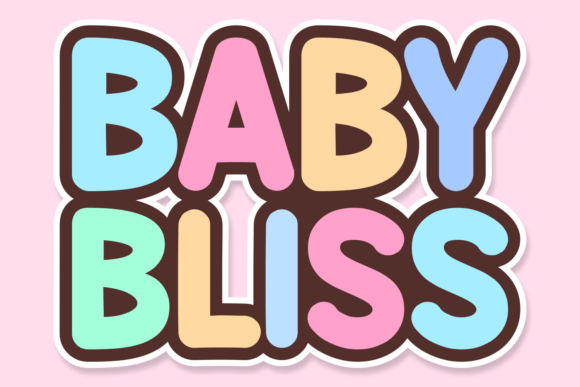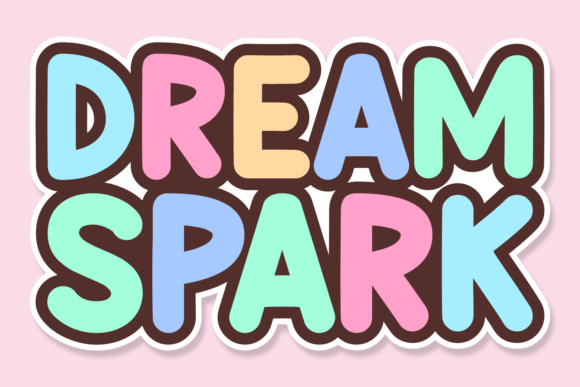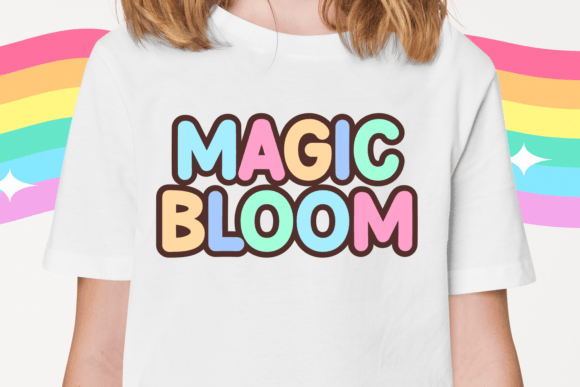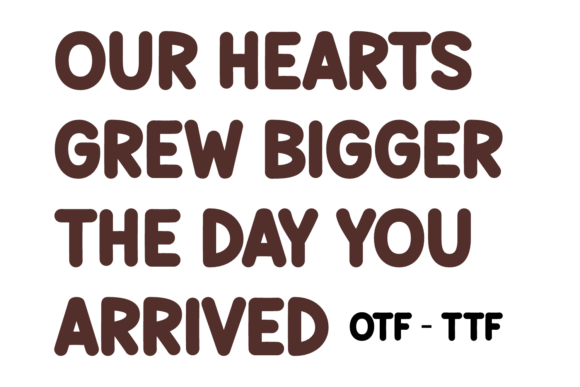
Introducing Cute Stories Font: The Ultimate Display Font for Playful Designs
Have you ever been in the middle of a design project, and suddenly, you’re stuck on finding the perfect font? I recall a recent experience where I was working on a children’s product design, and I just couldn’t find a font that captured the right amount of playfulness and readability. That’s when I stumbled upon “Cute Stories” font, and it completely transformed my design.
The Perfect Blend of Playfulness and Readability
Cute Stories font is a display font that beautifully combines playfulness with readability, making it an ideal choice for children’s products, casual game interfaces, digital planners, and more. Its timeless candy store allure is sure to grab attention, whether you’re using it for stickers, YouTube thumbnails, or summer branding.
A Maximalist Trendsetter with a Retro Twist
This font draws on bold, retro influences and marries them with a modern, Bohemian vibe. The result is a unique and trendy font that’s perfect for showcasing a bold, psychedelic touch reminiscent of vintage styles. With its bubble letters, vibrant aesthetics, and 70s-inspired groovy alphabet, Cute Stories font is sure to impress.
What I Love About Cute Stories Font
- ✨ Playful and Readable: Cute Stories font strikes the perfect balance between playfulness and readability, making it suitable for a wide range of design projects.
- 🌈 Vibrant Aesthetics: The font’s bold, retro influences and modern, Bohemian vibe create a unique and eye-catching visual identity.
While Cute Stories font is an excellent choice for many design projects, there are a few minor quirks to be aware of:
- 🤔 Some letters may require adjustment: Due to the font’s playful nature, some letters may require manual adjustment to achieve the perfect spacing and alignment.
- ⚠️ Not suitable for body text: Cute Stories font is designed for display purposes and may not be the best choice for body text due to its bold and playful nature.
The Designer Inspiration Behind Cute Stories Font
Cute Stories font was inspired by the retro charm of vintage candy stores and the playful, carefree spirit of the 1970s. The designer aimed to create a font that would capture the essence of childhood wonder and playfulness, while also being highly readable and versatile.
| Is Cute Stories font suitable for body text? | No, Cute Stories font is designed for display purposes and may not be the best choice for body text due to its bold and playful nature. |